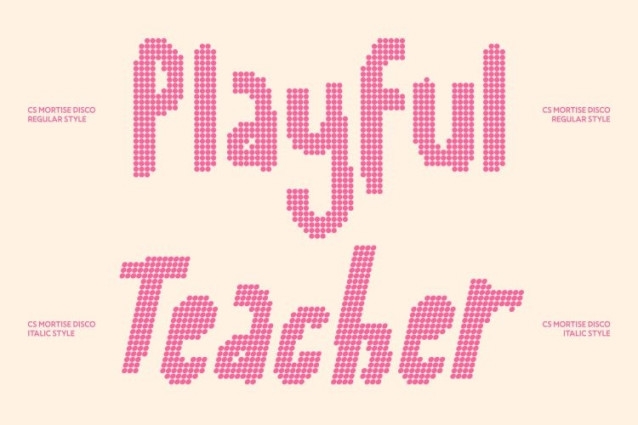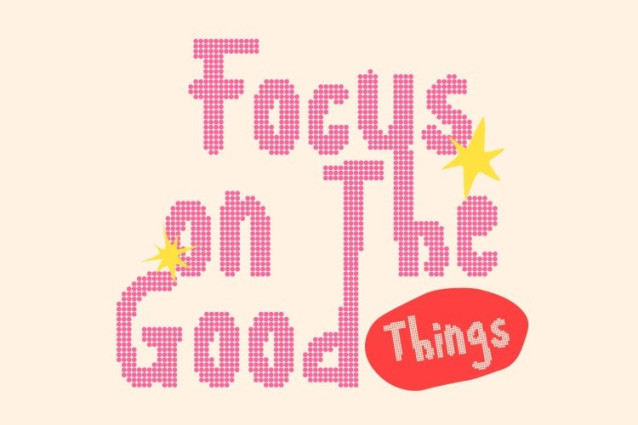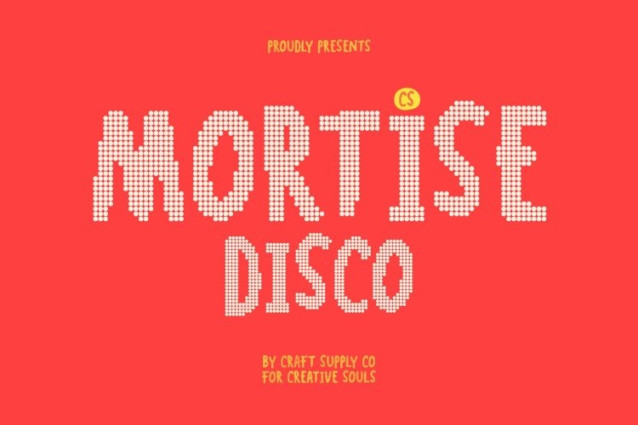
CS Mortise Disco Font
CS Mortise Disco Font is a friendly handwritten display font that blends hand-drawn warmth with a lively disco-inspired dotted texture. Its expressive strokes and organic forms maintain the charm of natural handwriting, while the dotted disco details add a playful shimmer that makes every letter feel vibrant and full of life.
Organic Shapes with Luminous Character
The fluid curves and rounded edges give the font an approachable and relaxed personality. Enhanced with the sparkling dotted style, the letterforms gain extra visual rhythm and texture, creating typography that feels both handcrafted and visually engaging.
Expressive Energy for Creative Designs
This font brings a joyful and energetic tone to any project. Its lively handwritten structure paired with disco-style sparkle transforms simple words into dynamic visual elements, perfect for designs that want to feel authentic, playful, and expressive.
Versatile for Fun and Creative Applications
Ideal for posters, branding, invitations, packaging, editorial layouts, and social media graphics, this font adapts easily to a variety of creative contexts. Its handcrafted style combined with its festive dotted texture helps designs feel warm, memorable, and full of personality.